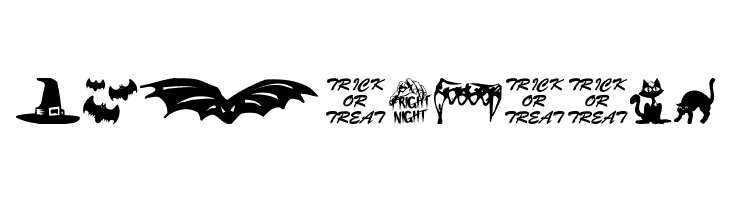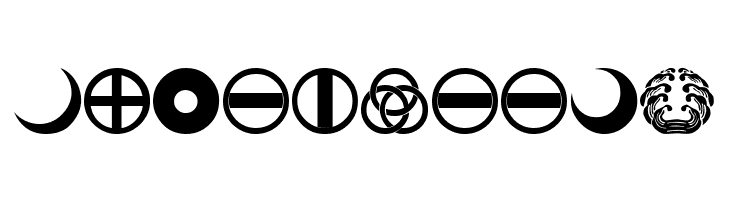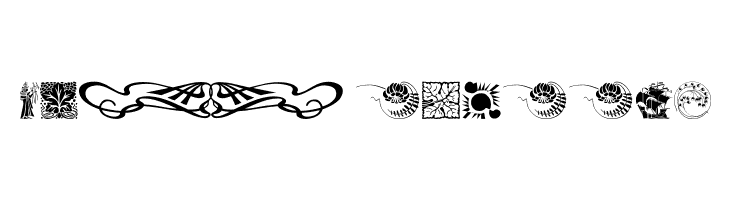
• Howling
A decorative Halloween-themed font with playful and spooky illustrations.
• Stamped Flowers
A bold, stamped-style font with characters enclosed in rectangular borders.
• Oriental Icons IV
Ornamental icon set with East Asian-inspired geometric and floral motifs.
• Tools
• Ornamental Frames I
A decorative dingbat font with ornate frame and border designs.
• Kiddy Toys
A dingbat font with hand-drawn toy and animal illustrations.
• On the farm
A playful, decorative font with bold, outlined characters in a farm theme.
• Ornamental Elements
Intricate ornamental dingbats with floral and classical motifs.
• Paisley II
Ornamental paisley dingbat font with detailed motifs.
• Dogs and Cats